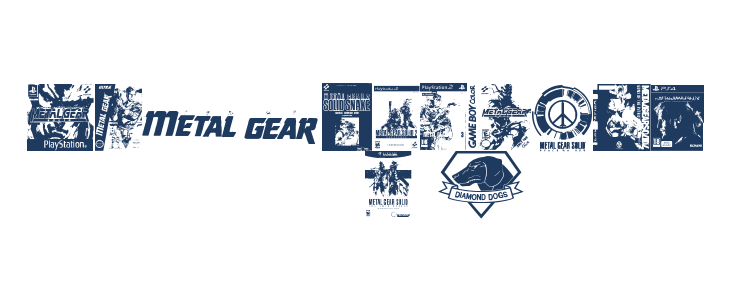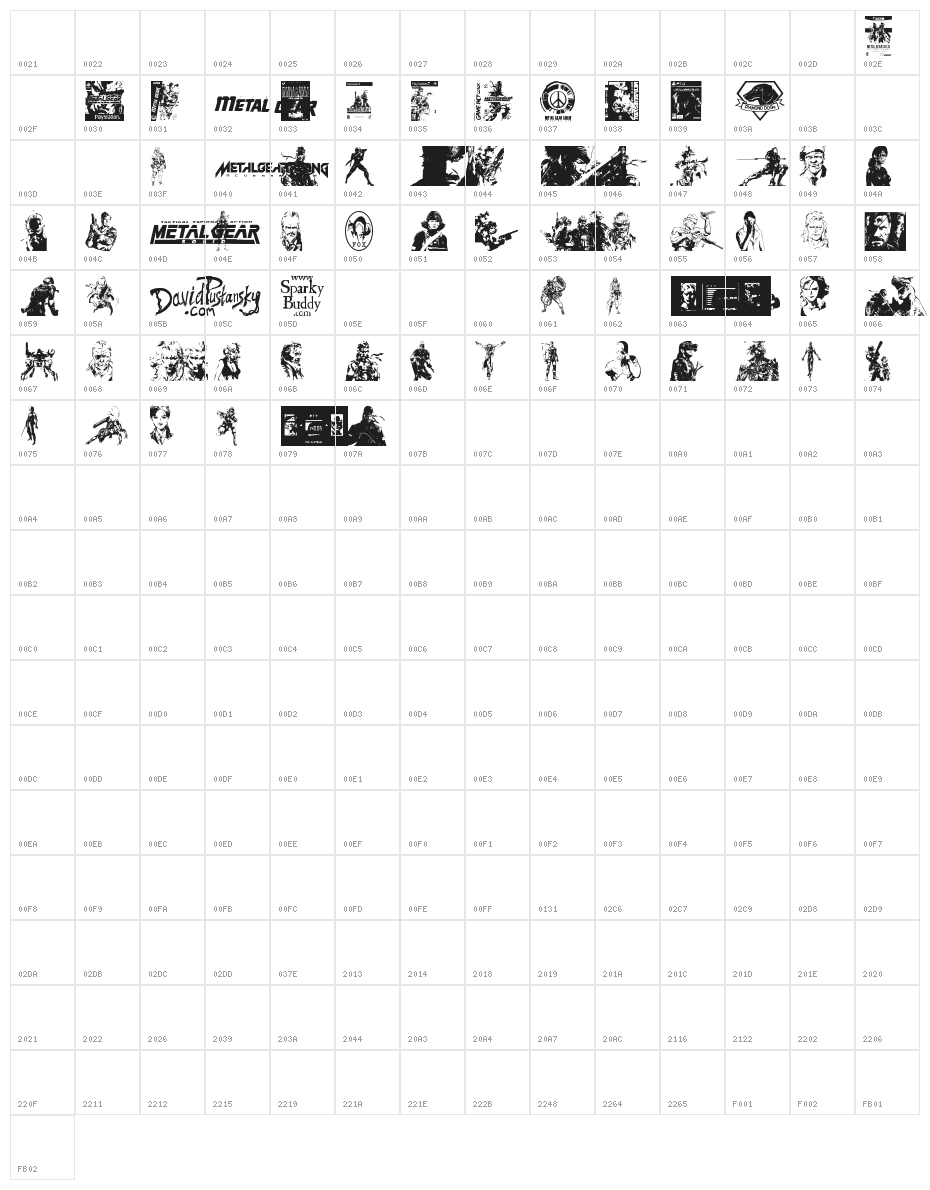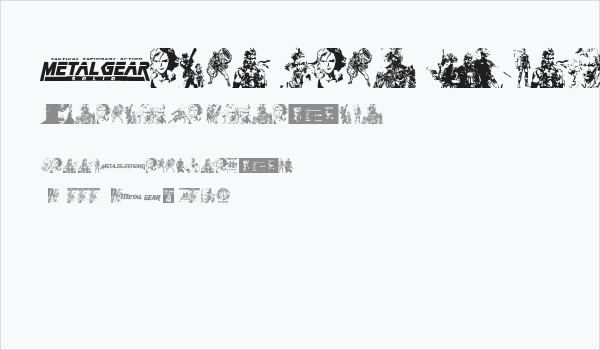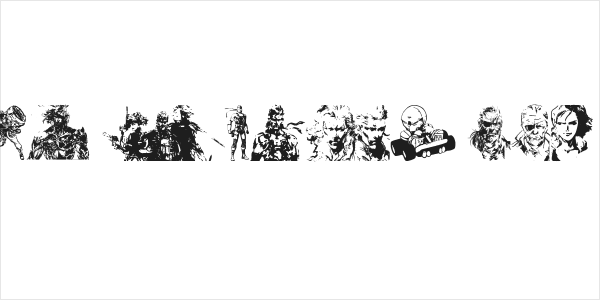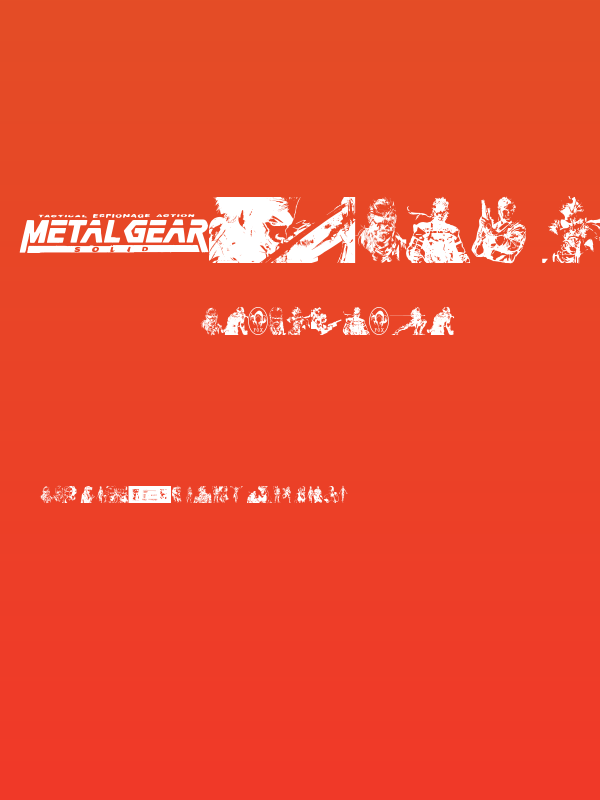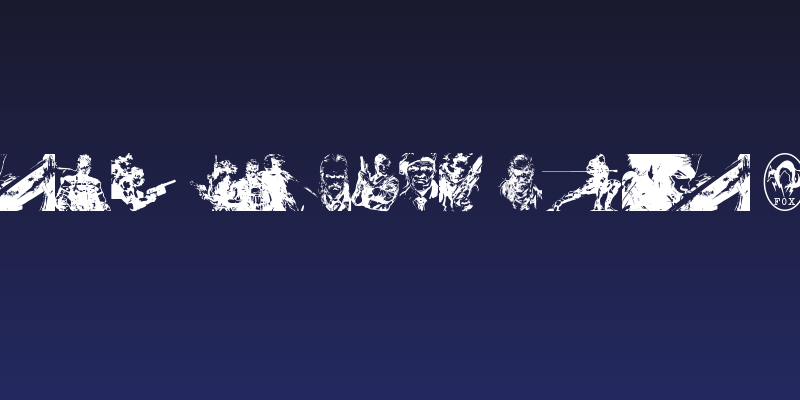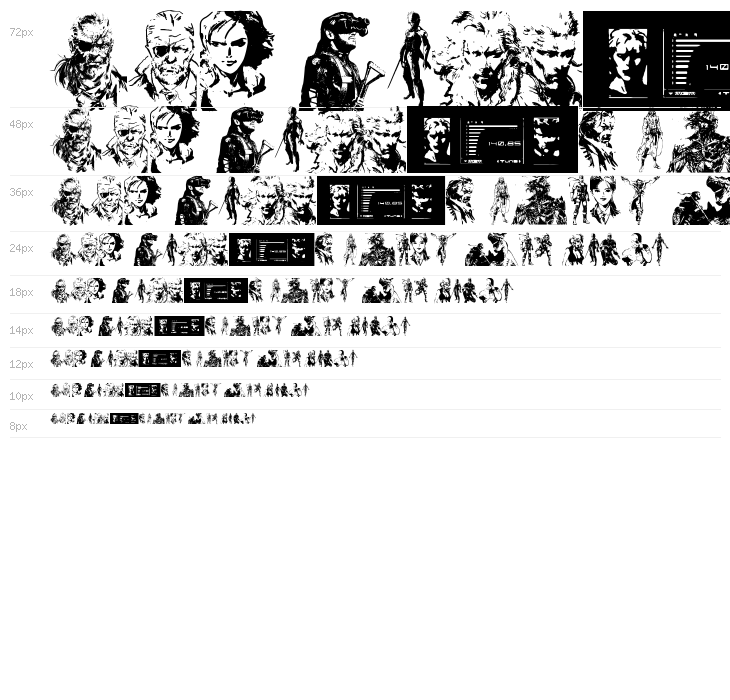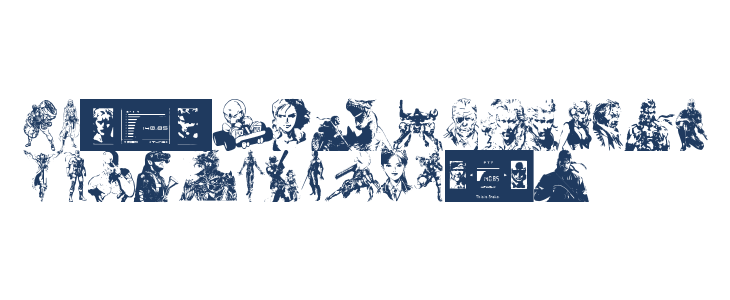
Metal Gear Solid The Phantom Font Font
Metal Gear Solid The Phantom Font Description
This is not a standard font; it consists of highly detailed, black-and-white graphic icons and illustrations from the Metal Gear Solid franchise, including characters, logos, and game covers, rather than a consistent set of typographic glyphs.
| Overall Style | Decorative, Thematic, Graphic |
| Use Case | Decorative elements, fan projects, themed artwork |
| Proposed Projects | Fan art, themed posters, game tribute designs, custom stickers. |